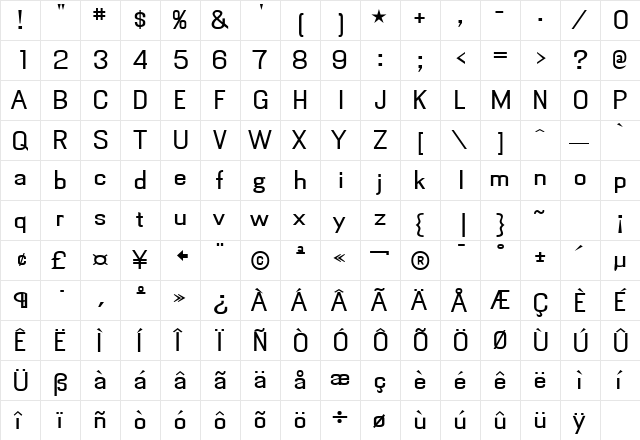
MyhotaHatched Bold
Design Context for MyhotaHatched Typeface
MyhotaHatched offers clean, dependable letterforms without strong stylistic allegiance, making it a practical choice for designers who need flexibility. The heavy weight commands attention and anchors typographic hierarchies.